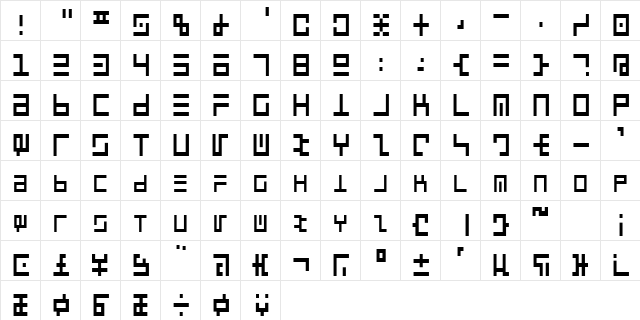
CyberspeakCondensed Regular Font Preview
Design Context for CyberspeakCondensed Typeface
CyberspeakCondensed has a distinctly futuristic character, with geometric precision and clean angles that feel at home in technology, gaming, and sci-fi contexts. The condensed width makes it efficient for tight spaces without sacrificing legibility.